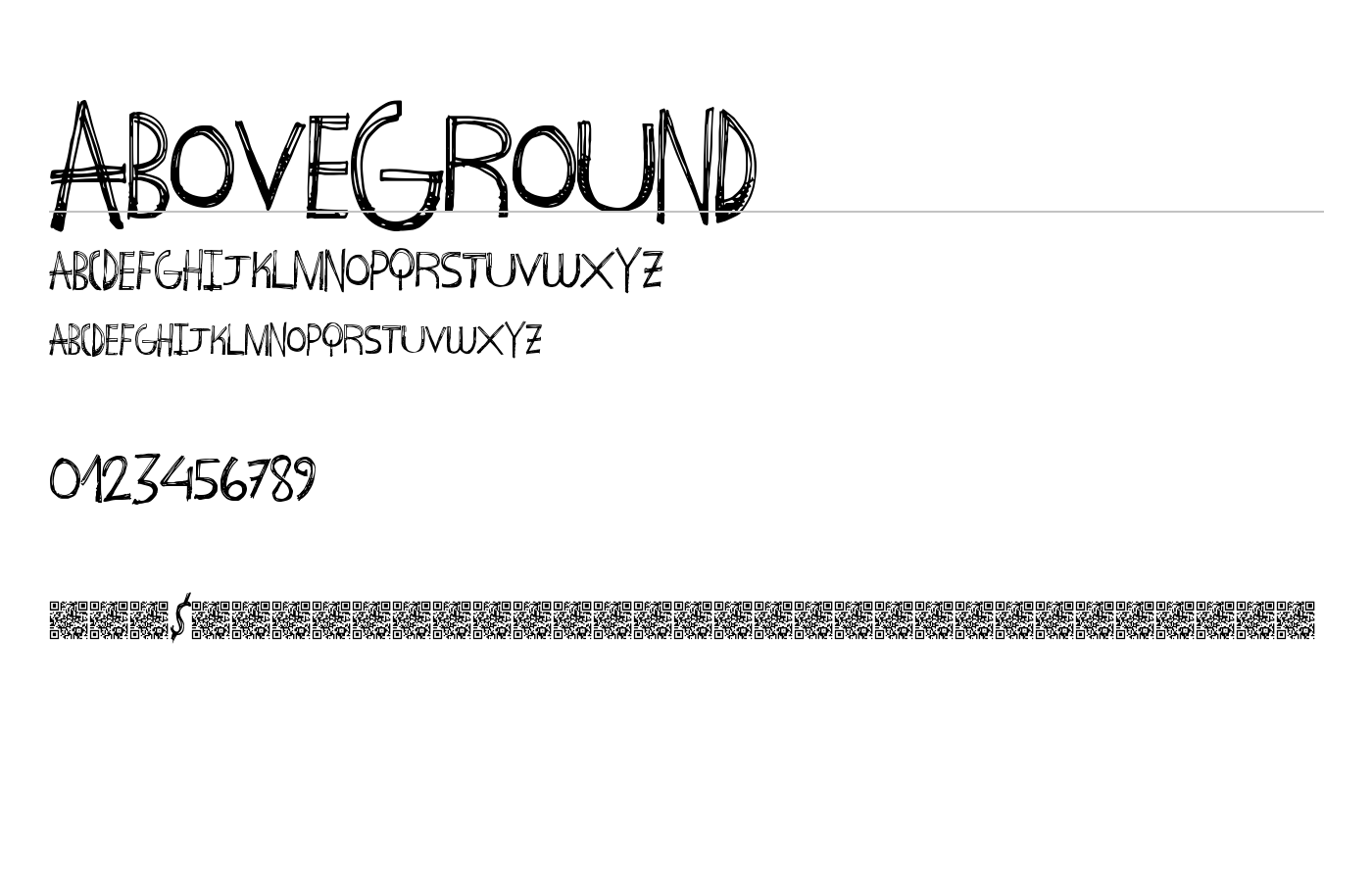
AboveGround is a playful, hand-drawn sans serif font with a casual, sketch-like style that adds a charming, informal touch to any design. Its tall, narrow letterforms and uneven strokes give it a lively, energetic personality, making it ideal for creative projects, posters, and branding that aim for a quirky, approachable vibe. This font works best in headlines or short text where its unique character can shine without sacrificing readability.
AboveGround Font
About AboveGround Font